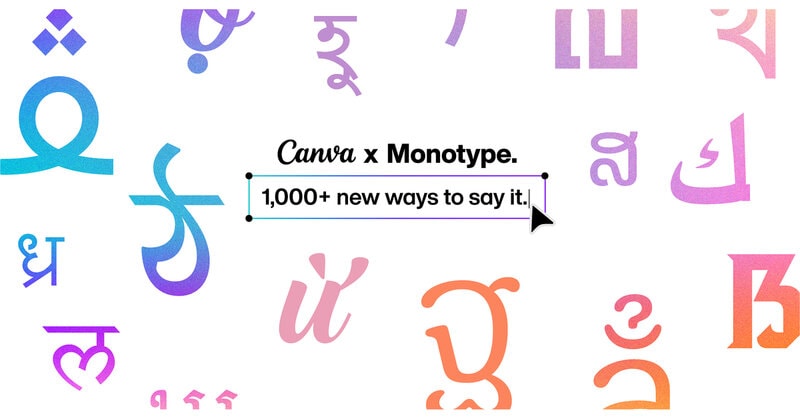
Canva is expanding multilingual design fonts through its partnership with Monotype, adding more than 1,000 font styles for creators working across languages and writing systems. The expansion brings Canva’s collection of Monotype and foundry partner styles to more than 3,000, with substantial additions for Arabic, Bengali, Hindi, Khmer, Lao, Thai and Vietnamese. Hindi gains 298 styles, while Bengali receives 237 and Vietnamese-supporting families gain 249. The collection spans serif, sans serif, display, script and text designs, giving users greater stylistic choice beyond basic language compatibility.
For Canva, broader typography supports its growth as a global visual communication platform as users create content for different cultures and markets. Canva users translated more than 17 million designs in 2025, demonstrating demand for multilingual creation tools. Expanding professional-quality font choices can help Canva serve international creators and brands while strengthening Monotype’s reach through a widely used design ecosystem.
- Multilingual Typography
- Expanded font libraries across diverse writing systems create new potential for design platforms to serve global creators with culturally relevant visual expression.
- Localized Creative Tools
- Language-specific design assets are reshaping creative software by making professional content production more accessible for regional markets and multilingual brands.
- Cross-cultural Branding
- Broader stylistic choice in non-Latin scripts supports more consistent brand identity development across international audiences and localized campaigns.
- Graphic Design Software
- Integrated multilingual font ecosystems can differentiate design platforms as businesses seek scalable tools for global content creation.
- Font Licensing
- Digital marketplaces and software partnerships are expanding distribution channels for type foundries as demand rises for high-quality multilingual typography.
- Marketing Technology
- Global campaign platforms gain value from localized visual assets that improve cultural relevance across translated and region-specific brand communications.